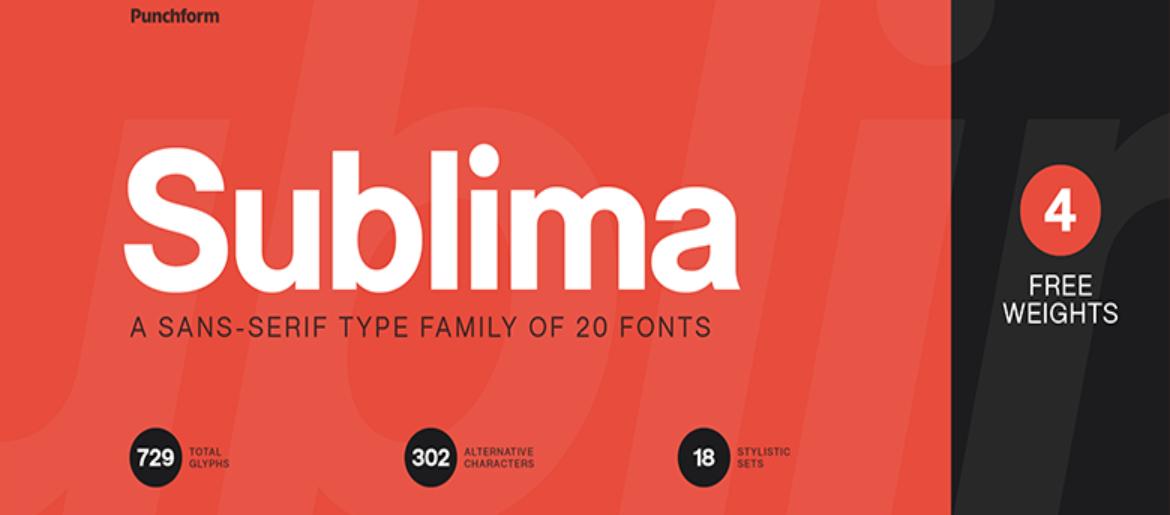
Sublima Font
Sublima font
Sublima Font is a modern sans serif typeface designed by Punchform, featuring clean lines and refined proportions. It delivers strong readability and a professional appearance, making it suitable for branding, editorial layouts, interfaces, and digital products. Its balanced and contemporary character makes it a reliable and versatile choice within modern and functional free fonts collections.
➤ Font Name: Sublima
➤ Designer: Punchform
➤ Style: Sans Serif